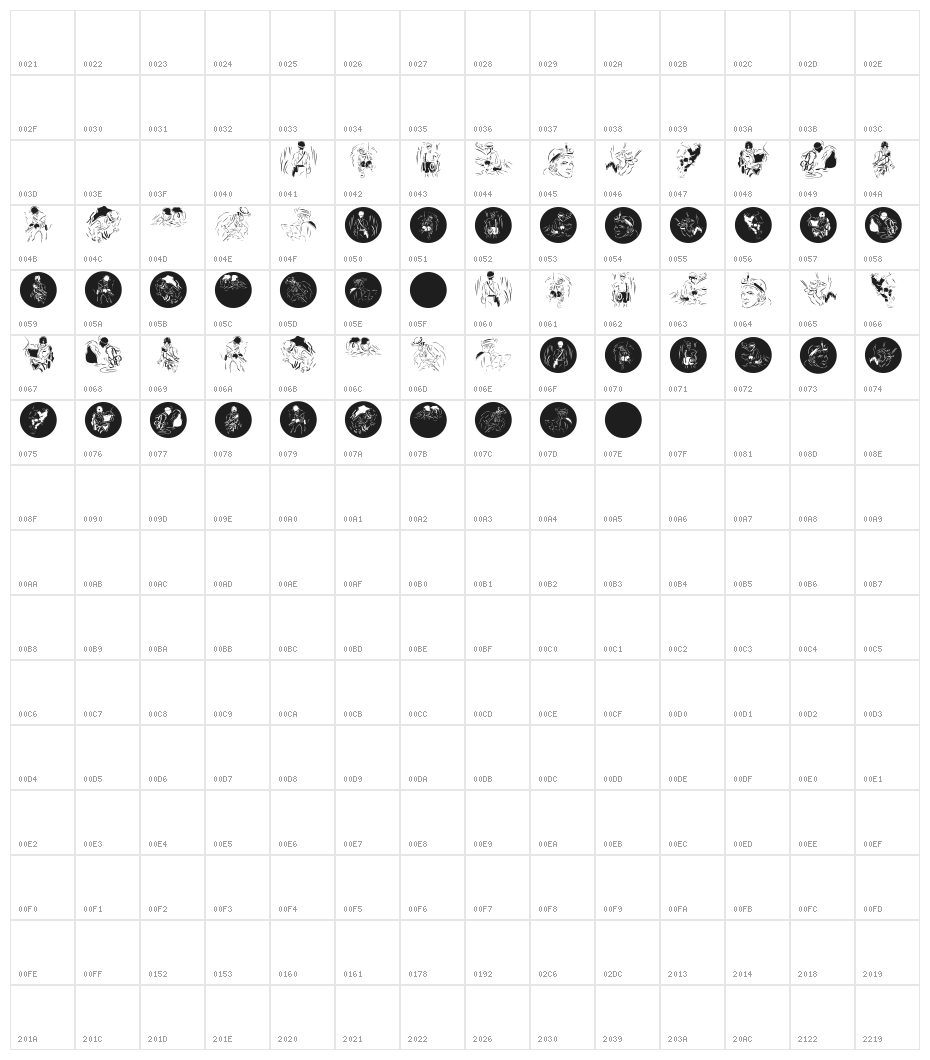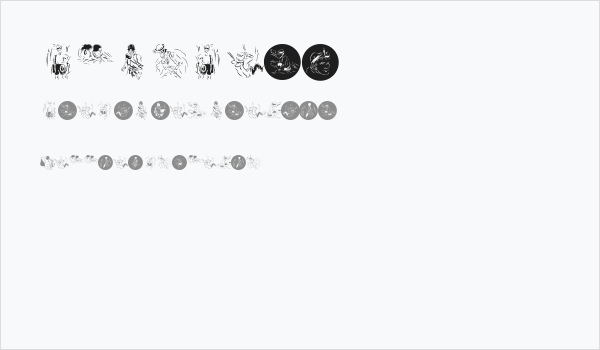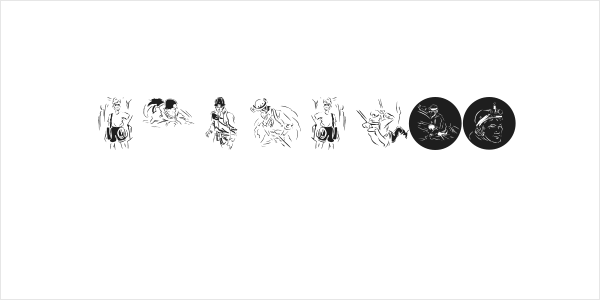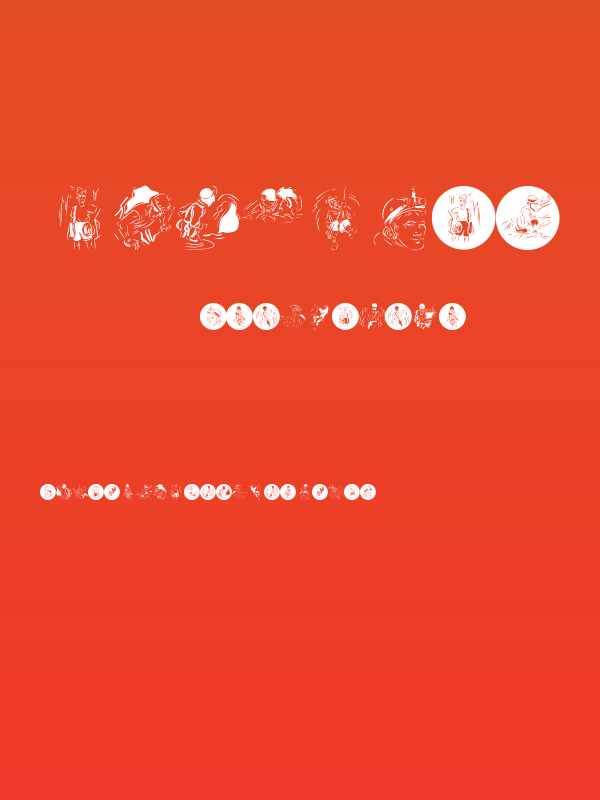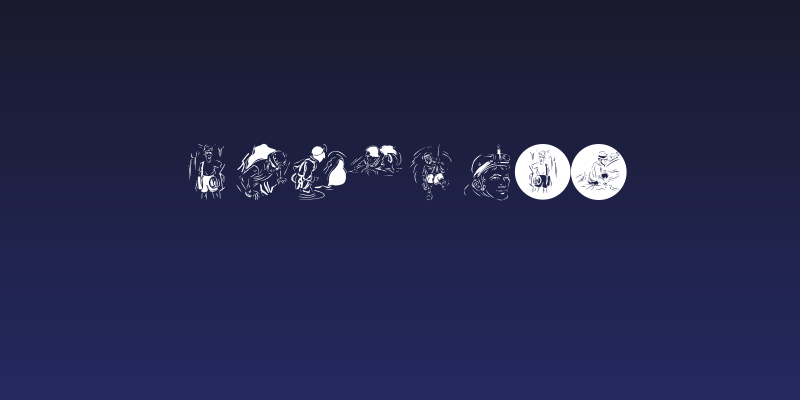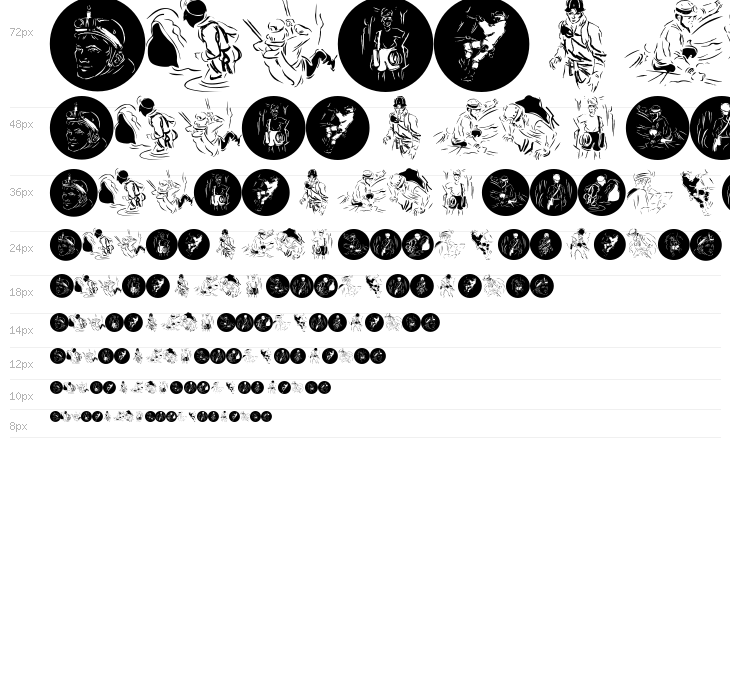
Climbers2005 Font
Climbers2005 Description
A decorative dingbat font featuring detailed line art illustrations of climbers and mountaineering scenes, some within solid black circular backgrounds and others as standalone sketches. Each character represents a unique climbing pose or scenario, emphasizing dynamic movement and outdoor adventure.
| Overall Style | Decorative, Illustrative, Thematic |
| Use Case | Logos, Posters, Themed graphics, Event materials |
| Proposed Projects | Outdoor adventure branding, climbing gym posters, event flyers, themed merchandise, educational materials about mountaineering. |